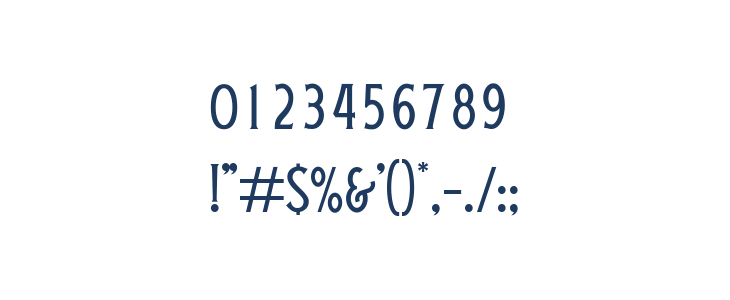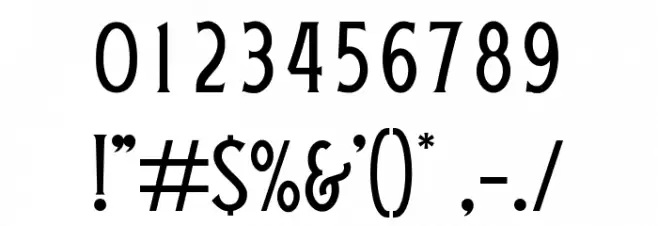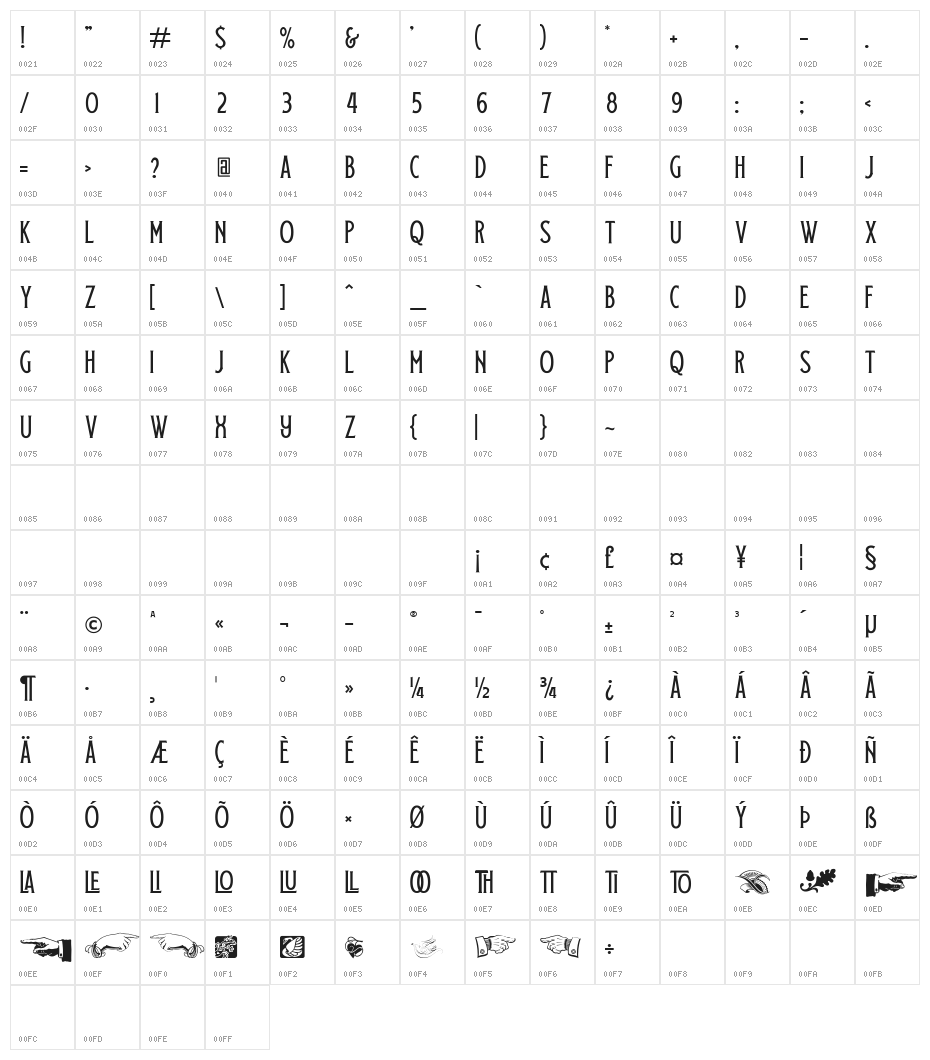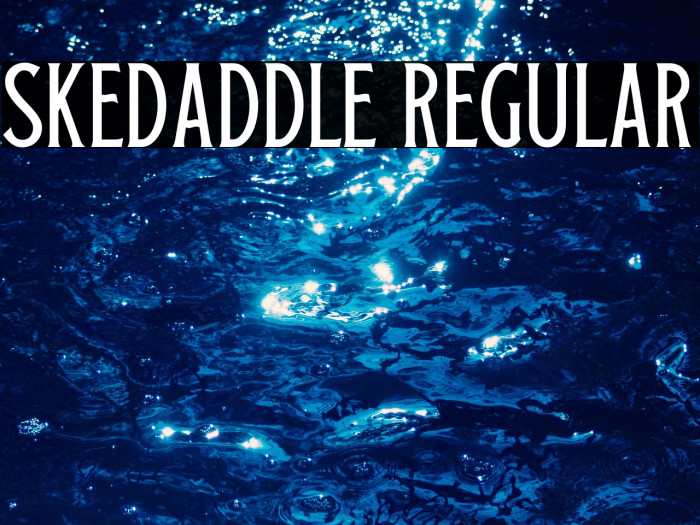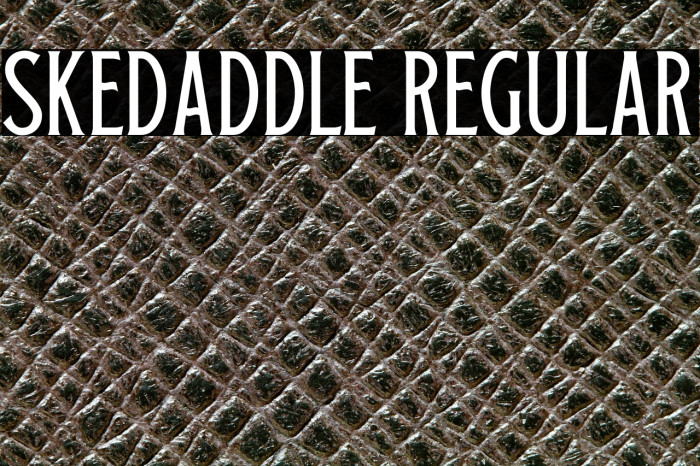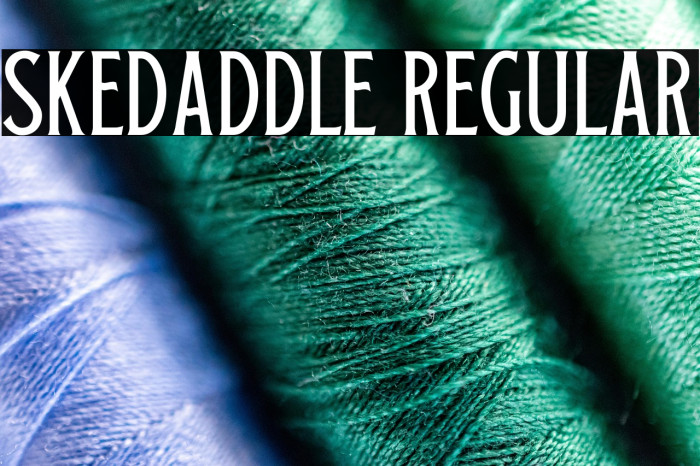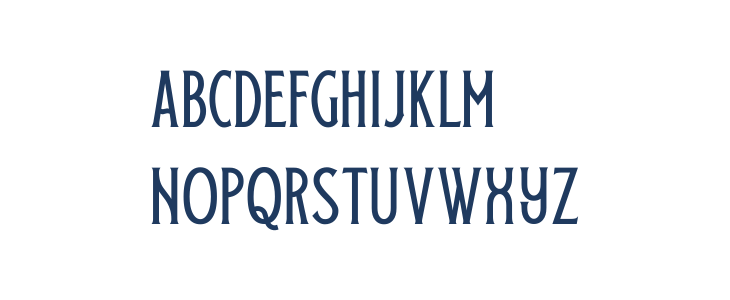
Skedaddle Regular Font
Skedaddle Regular Description
This font features a playful and whimsical design with a distinct, hand-drawn appearance. The characters are slightly elongated with a subtle curve, giving them a lively and energetic feel. The uppercase and lowercase letters maintain a consistent style, with the uppercase letters being slightly more pronounced. The numerals are clear and easy to read, while the special characters add a touch of fun with their unique shapes. Overall, this font exudes a sense of creativity and charm, making it ideal for projects that require a touch of personality.